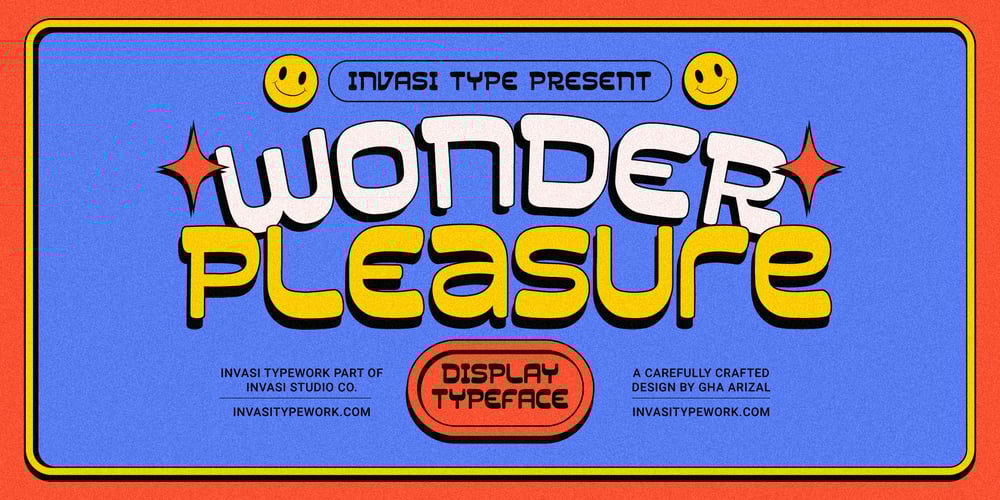
Wonder Pleasure Font Family was designed by Gha Arizal and published by Invasi Studio. Wonder Pleasure contains 1 styles and family package options. Introducing Wonder Pleasure, a new display font collection. The Wonder Pleasure font comes in a hand-drawn vintage style with rounded corners. Adding a vintage touch to your project is easy using Wonder Pleasure Font. Ensuring carefully crafted styles result from the use of this font. You can use the alternates from this font to add more fun to your projects. Its imperfections keep it casual but allow it to still be legible. There is an incredibly wide range of uses for it, so give it a try and see how it inspires your creativity! It’s ideal for headlines, flyers, posters, greeting cards, product packaging, book covers, printed quotes, logotype, and album covers, among other applications. Features:- Total 210 Glyph- Uppercase & Lowercase- Numerals & Punctuation- Multilanguage Supports 60+ Latin based languages- Alternates